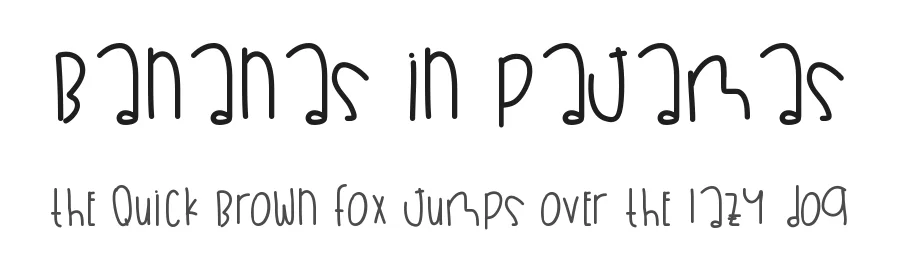
About Playground Font
Playground is a simple, cute and readable script font. Friendly and natural, this font is perfect for children themed designs, especially when combined with bright colors.
Playground Font is a script font that shines as a display or heading face. Pair it with a clean sans-serif or serif font for body text β the contrast creates a clear hierarchy while the two styles stay balanced and easy to read.
Playground Font